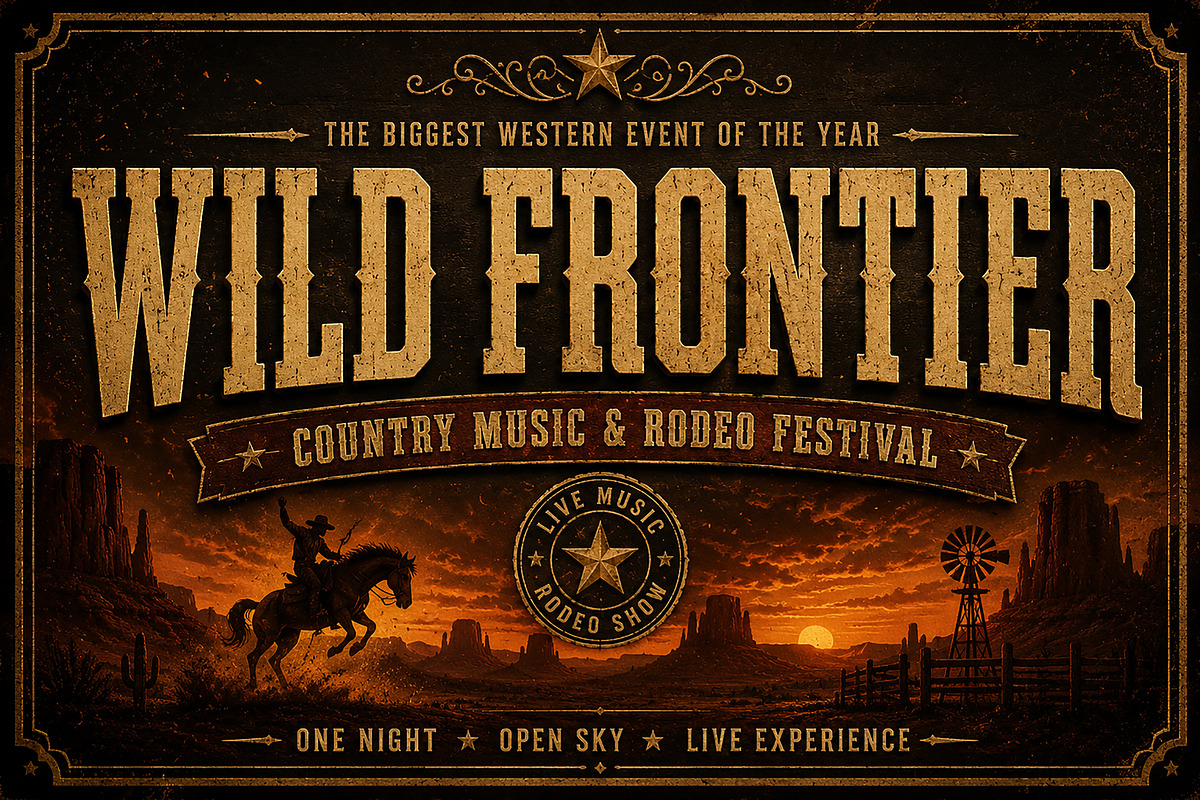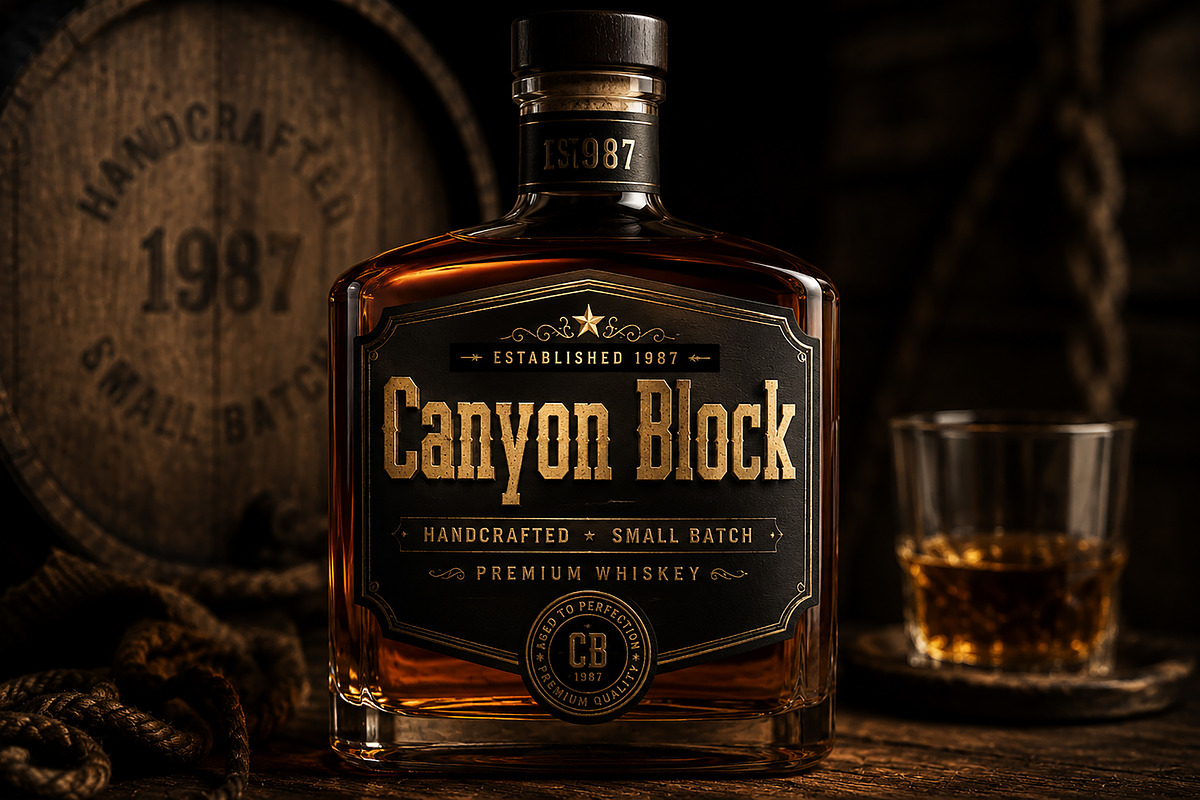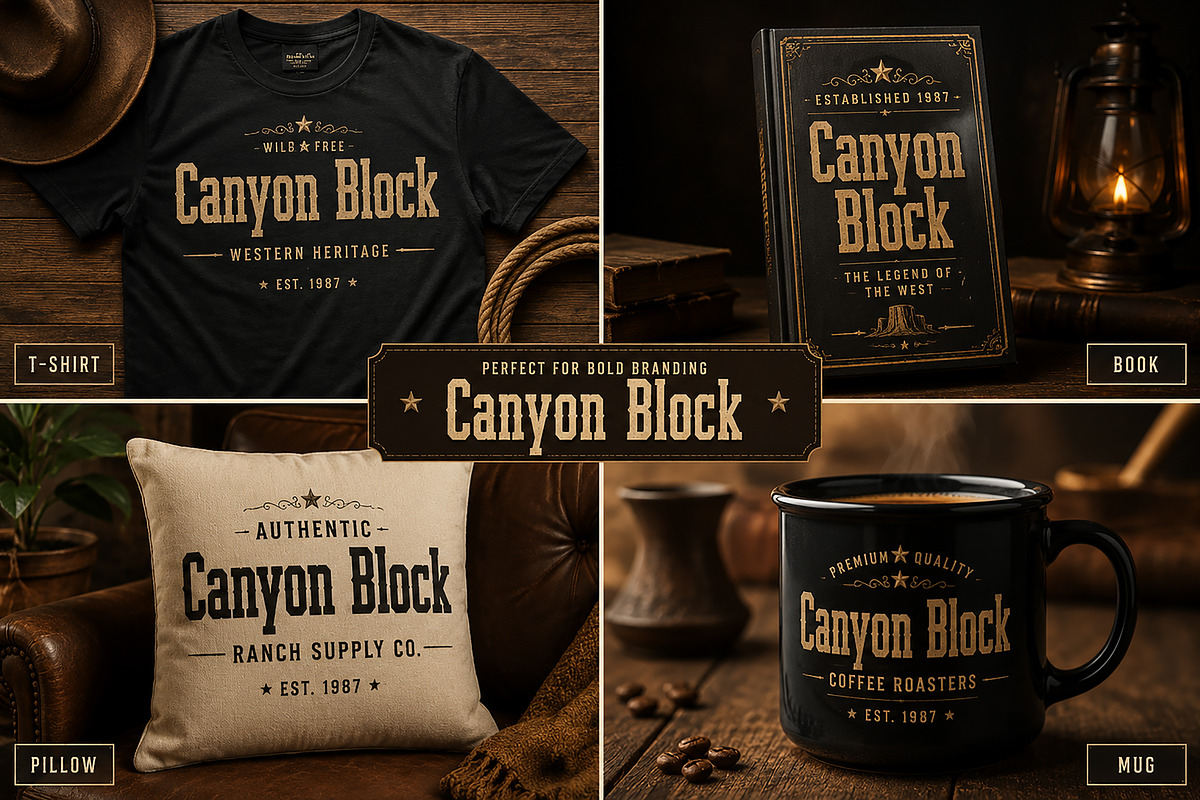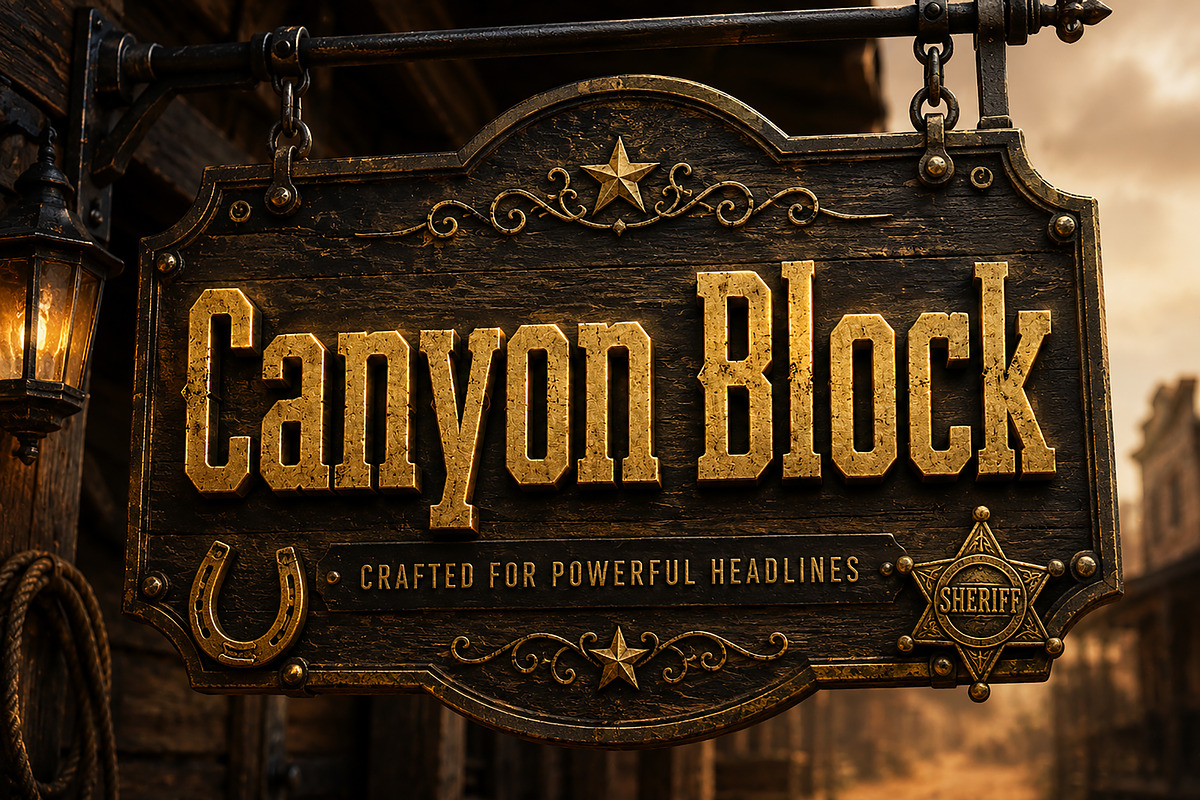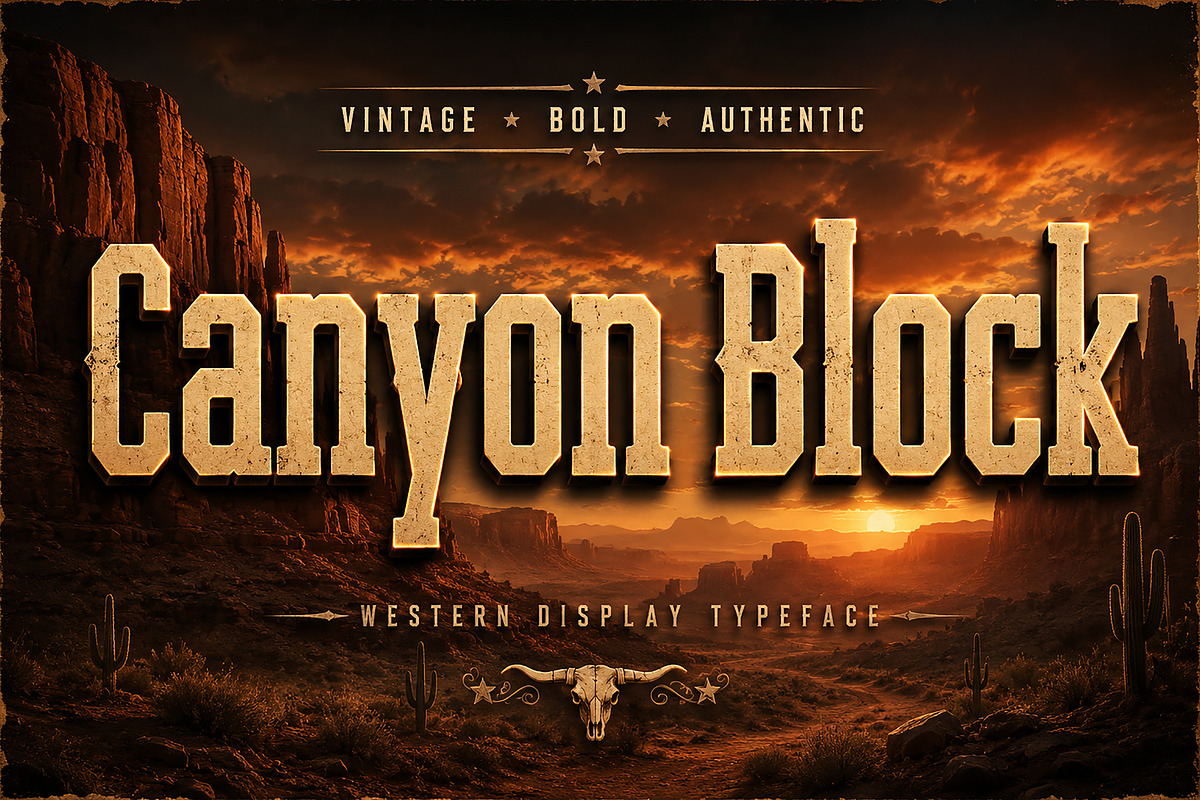
Canyon Block
Canyon Block is a bold Western display typeface inspired by the rugged landscapes of the American frontier, vintage saloon signs, ranch branding, and classic cowboy culture. Designed with strong geometric letterforms and authentic Western character, this font is perfect for creating eye-catching headlines and timeless vintage designs.
Whether you're designing logos, posters, product packaging, apparel, signage, or branding projects, Canyon Block delivers a powerful rustic aesthetic that instantly grabs attention.
Ideal for Western-inspired, vintage, retro, rustic, country, and adventure-themed designs.